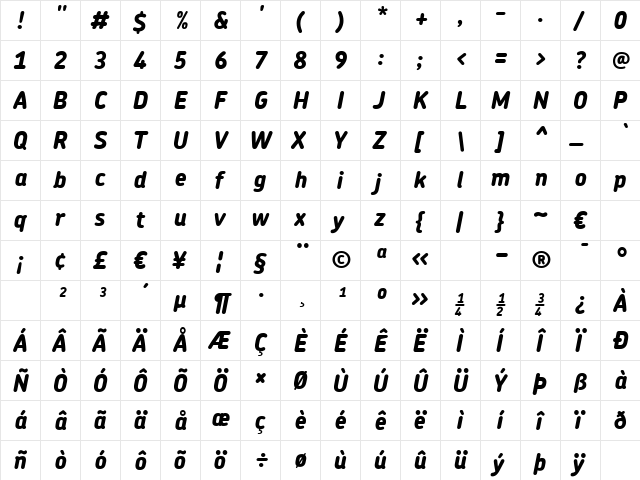
ChevinExtraBoldItalic Regular
Design Context for ChevinExtraBoldItalic Typeface
ChevinExtraBoldItalic offers clean, dependable letterforms without strong stylistic allegiance, making it a practical choice for designers who need flexibility. The dynamic lean of this cut emphasises speed and emphasis in any layout. Its bold stroke weight gives it real presence on the page.